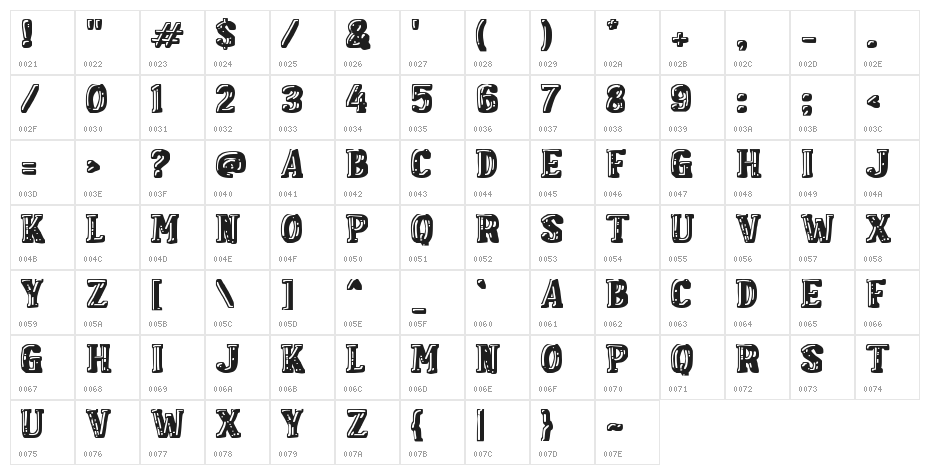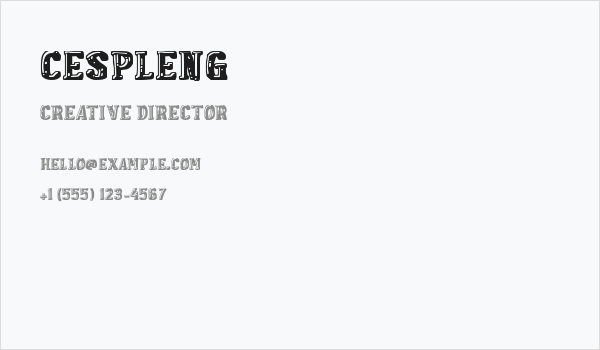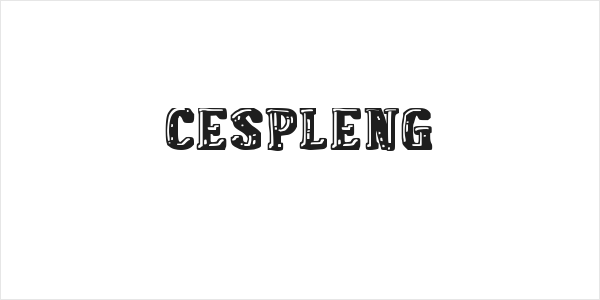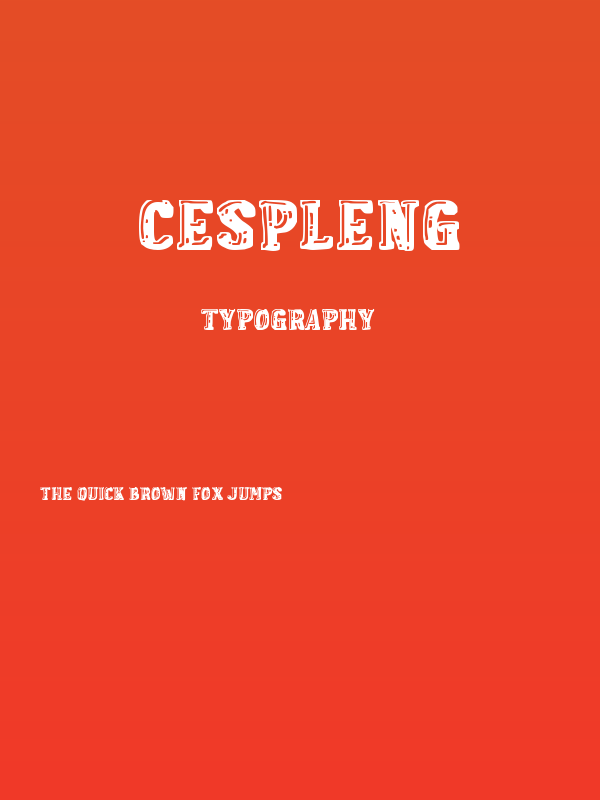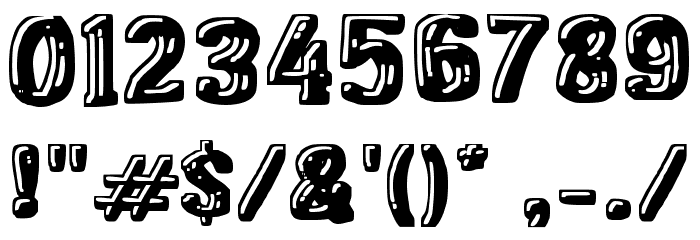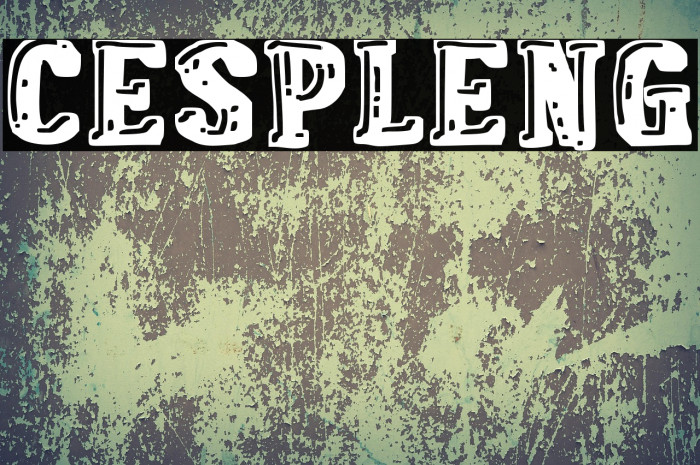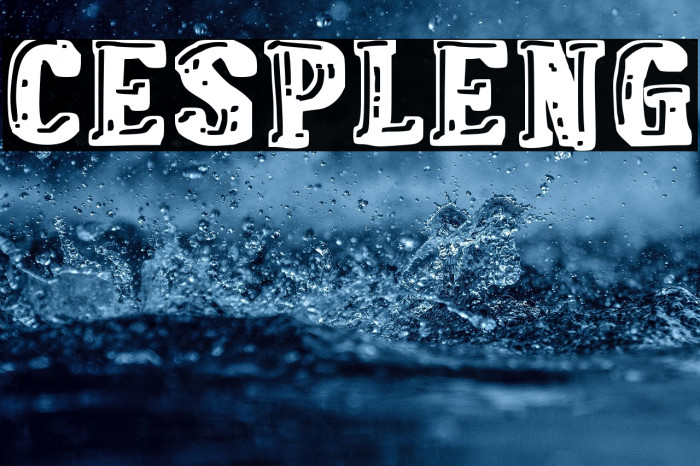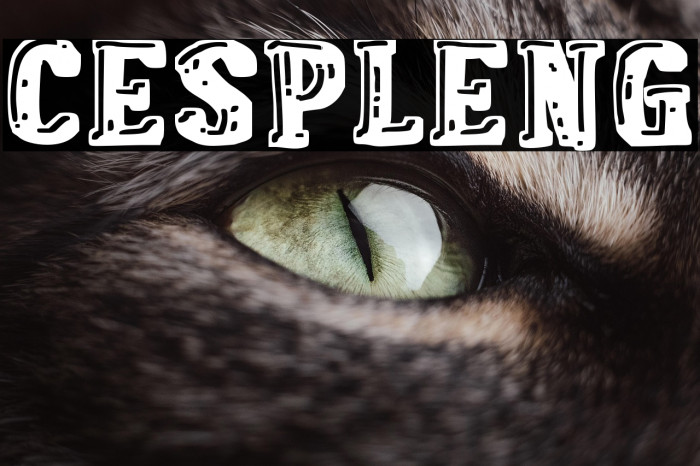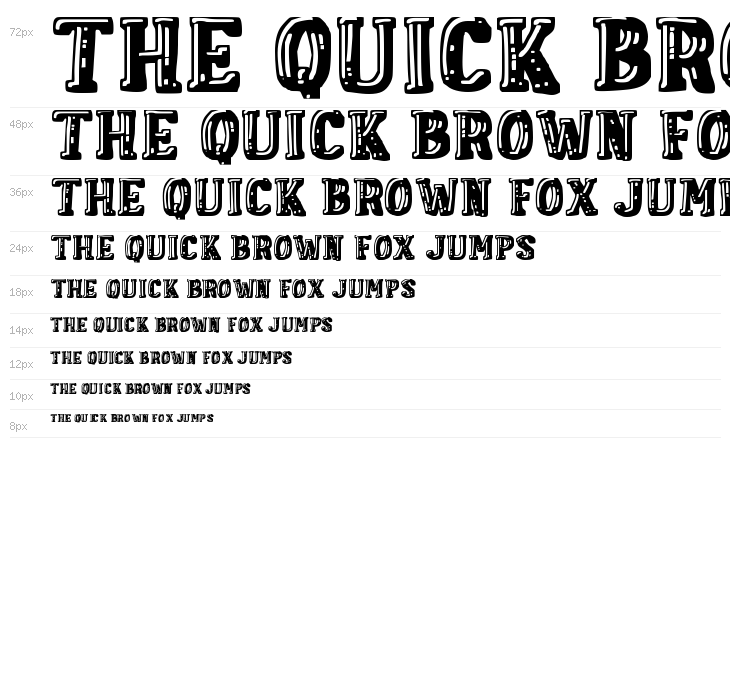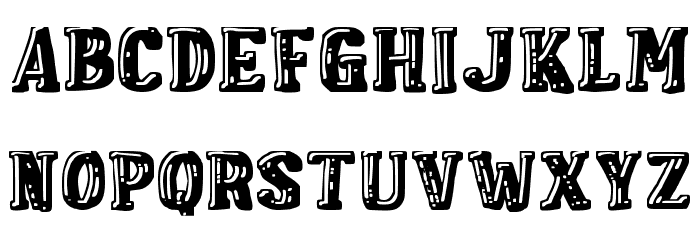
Cespleng Font
Cespleng Description
This font features a bold, decorative style with a playful and dynamic appearance. Each character is filled with intricate patterns and cutouts, giving it a unique, eye-catching look. The letters are slightly condensed, with a strong presence that makes them stand out. The font's design includes a mix of thick and thin strokes, adding to its visual interest and making it suitable for creative and artistic projects. Its whimsical nature is ideal for designs that require a touch of fun and creativity.
| Proposed Projects | Ideal for posters, event invitations, children's book covers, and playful branding. |